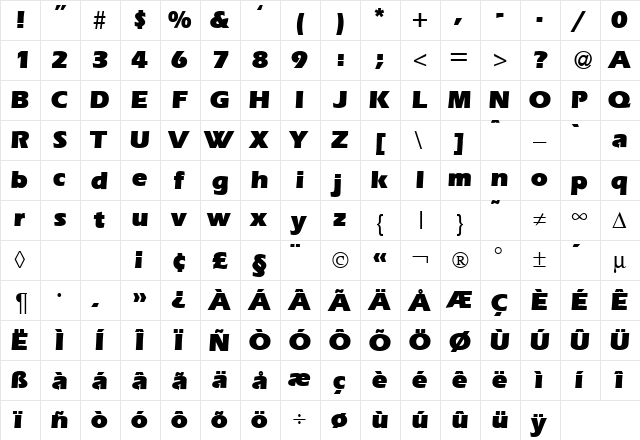
ErgoUltra Regular
ErgoUltra takes a measured approach to typography — its balanced proportions and neutral character make it a reliable workhorse for both digital and print work.